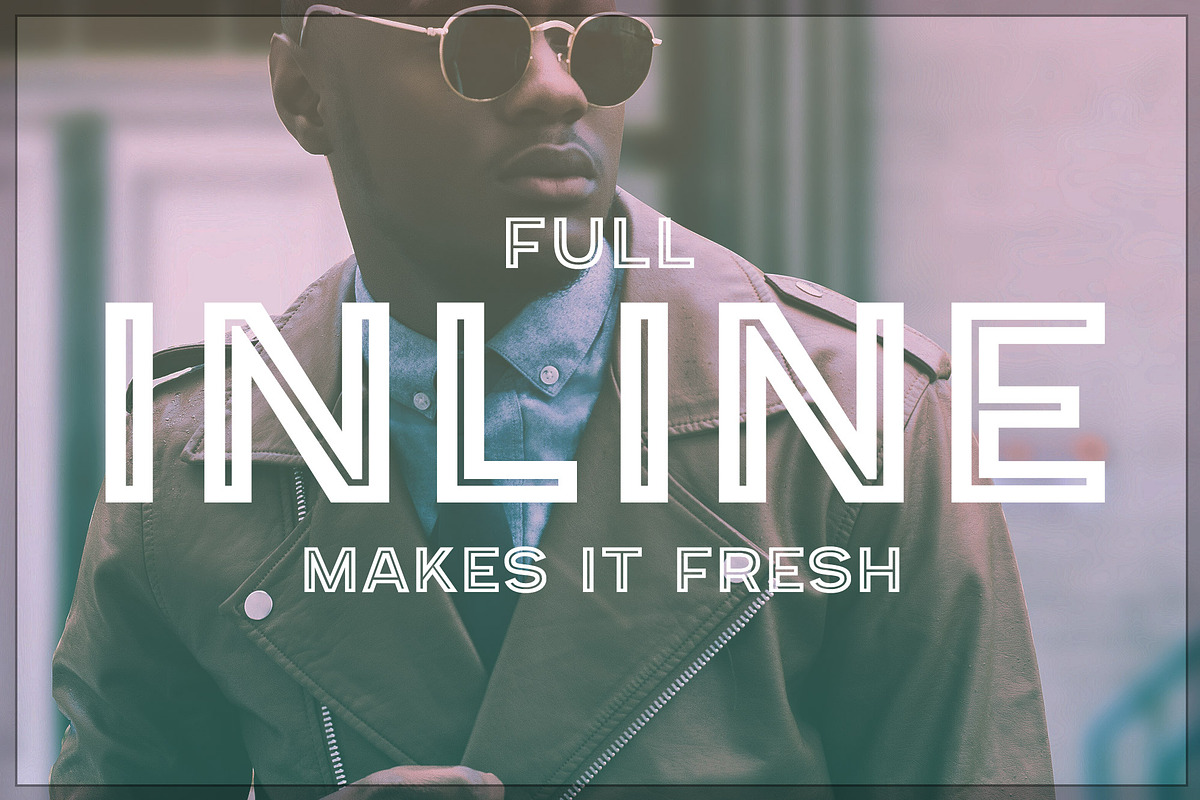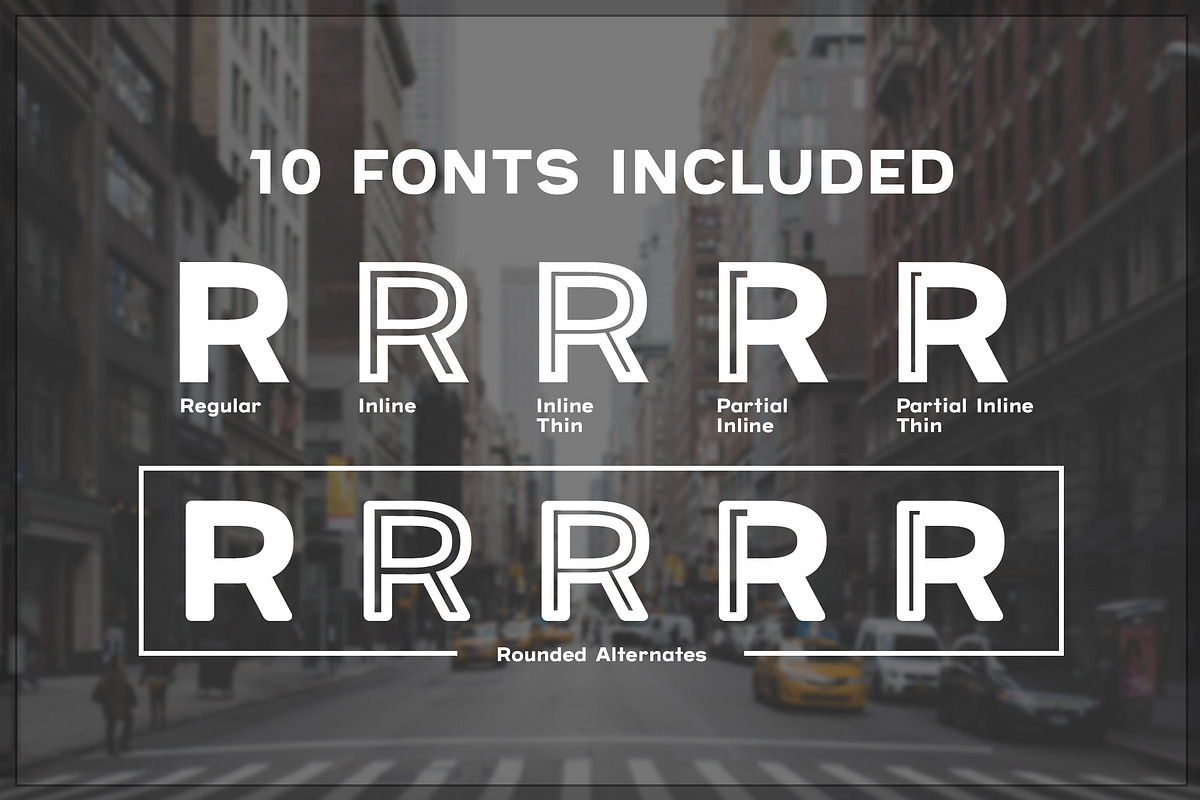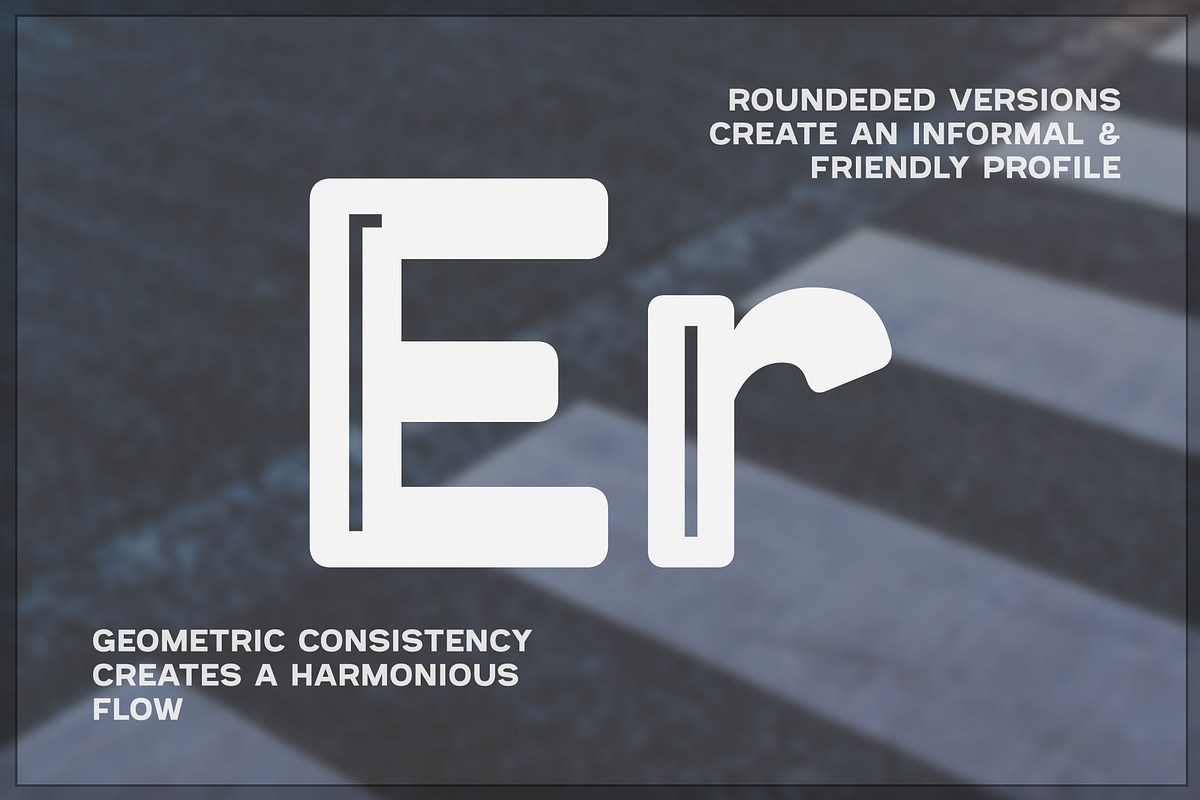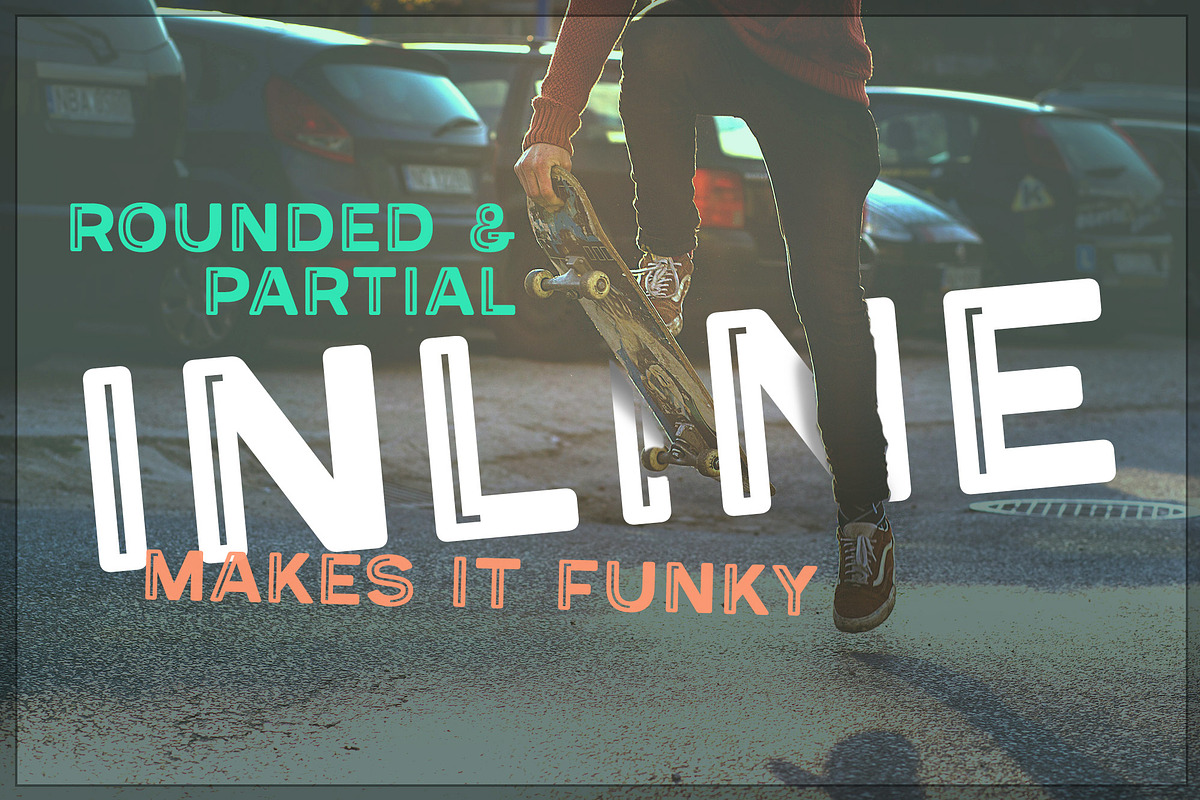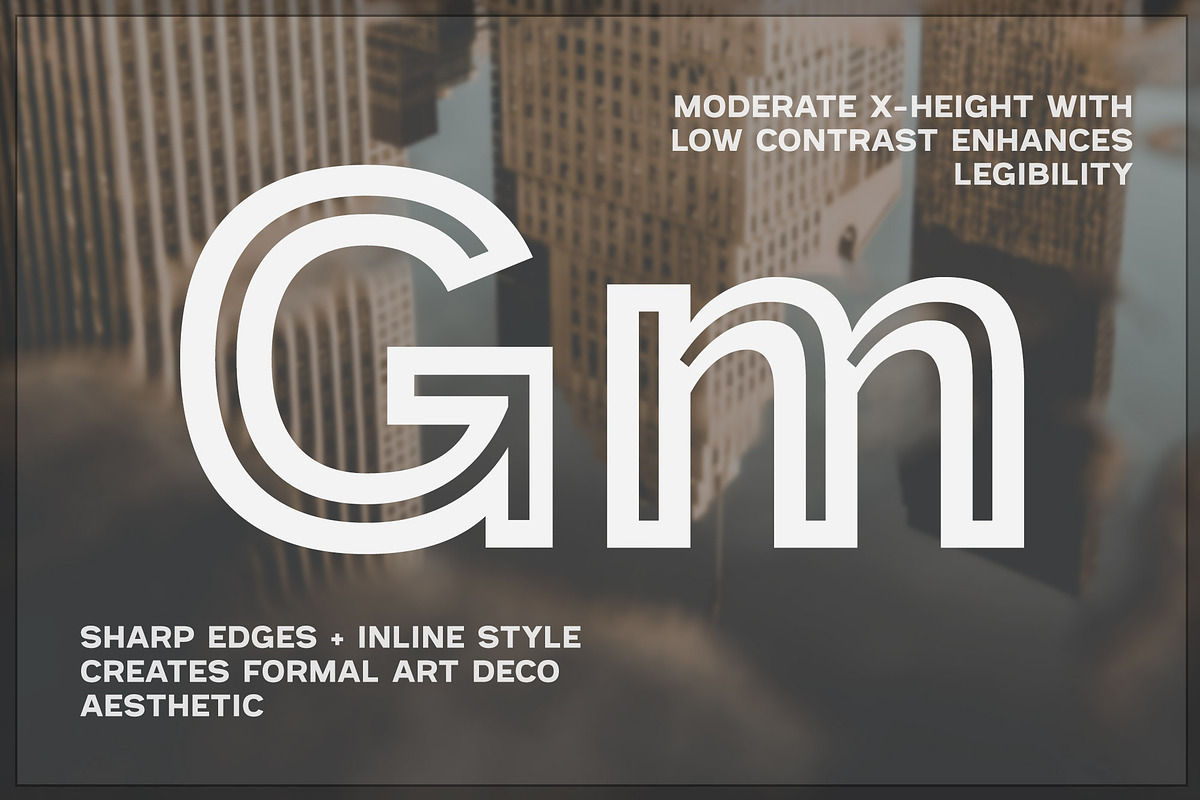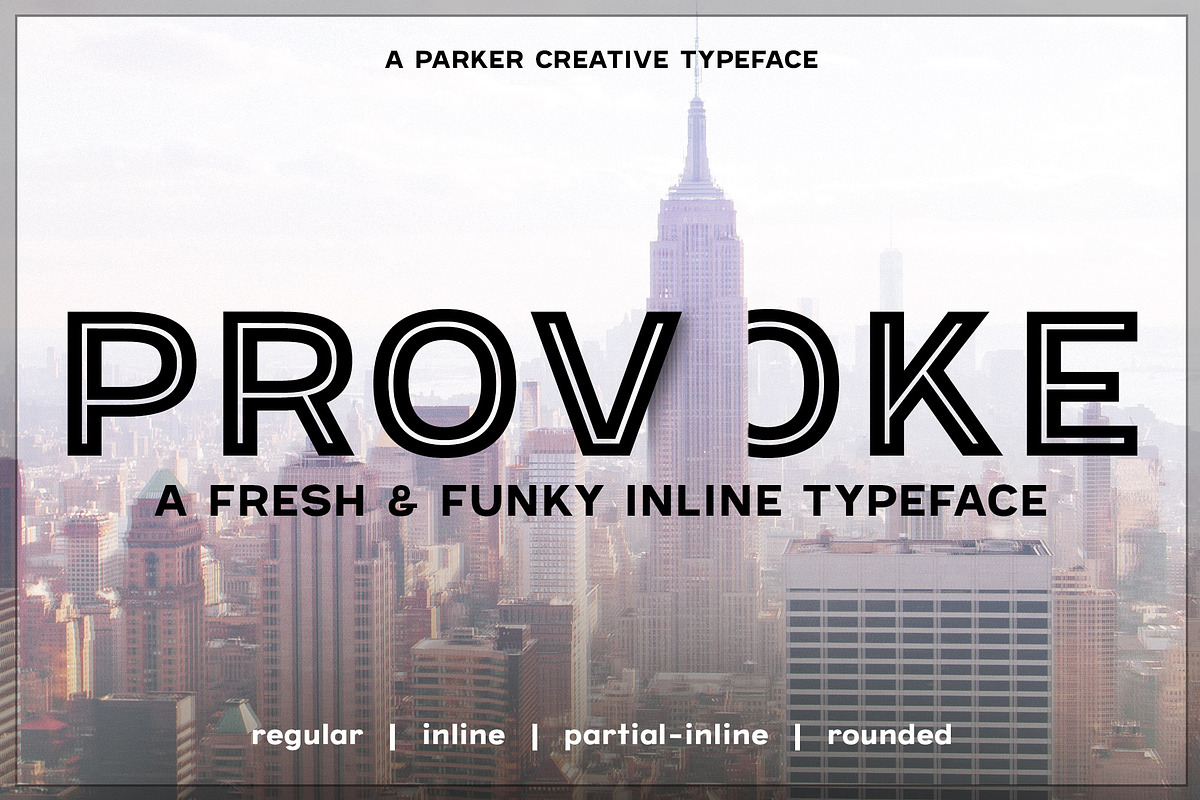
Provoke - A Fresh & Funky Font
Introducing Provoke, a fresh and funky inline typeface with 10 stunning font variations!
Inspired by Art Deco design, Provoke is a powerful display typeface that features sharp geometric design and stunning inline cutouts of varying styles. This typeface is boldly rooted in modern urban culture and can create two incredibly distinct visual styles based on the specific font that is utilized.
Deco Chic & Super Fresh
Bring a unique elegance to your designs by utilizing Inline and Inline-Thin font variations. These inline styles add a classy high-brow element thanks to their Art Deco influence.
Straight edges and full inline length on each glyph turns your content into an aggressive all-business affair with formal overtones.
Inline thin is most impactful for large text, while it's thicker alternate Inline balances out the weight when used on smaller type.
Push your designs to psychedelic levels by pairing the innovative Partial Inline with rounded lettering.
Partial Inline creates a grungy counterculture aesthetic as if the glyphs were freshly scratched on a DJ turntable.
Use this font style to create a compelling urban aesthetic that you might also find in the graffiti galleries of city bridges walls and tunnels.
In all, the Provoke font family comes in 10 font variations for a great amount of versatility for your project. Whether you're looking for modern chic, or streetlamp funk, this typeface has you covered.
- Inline thin is most impactful for large text, while it's thicker alternate Inline balances out the weight when used on smaller type.